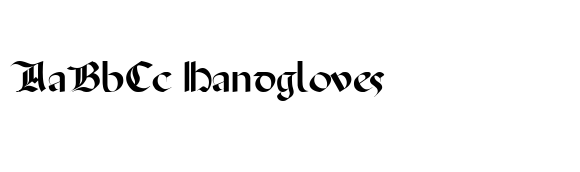
The El Cid Font Family was designed by Tony Nash and published by Classic Font Company. El Cid contains 3 styles and family package options. More about this family
• El Cid
• El Cid Tooled
• El Cid Swashed
El Cid is based on a Spanish round gothic-script hand similar to the northern rotundra blackletter. It is however simpler in form and more legible than its northern relative. A unique feature of this family is the Swashed face which includes extensions and swirls for letters that can be placed before, after, over or under words.